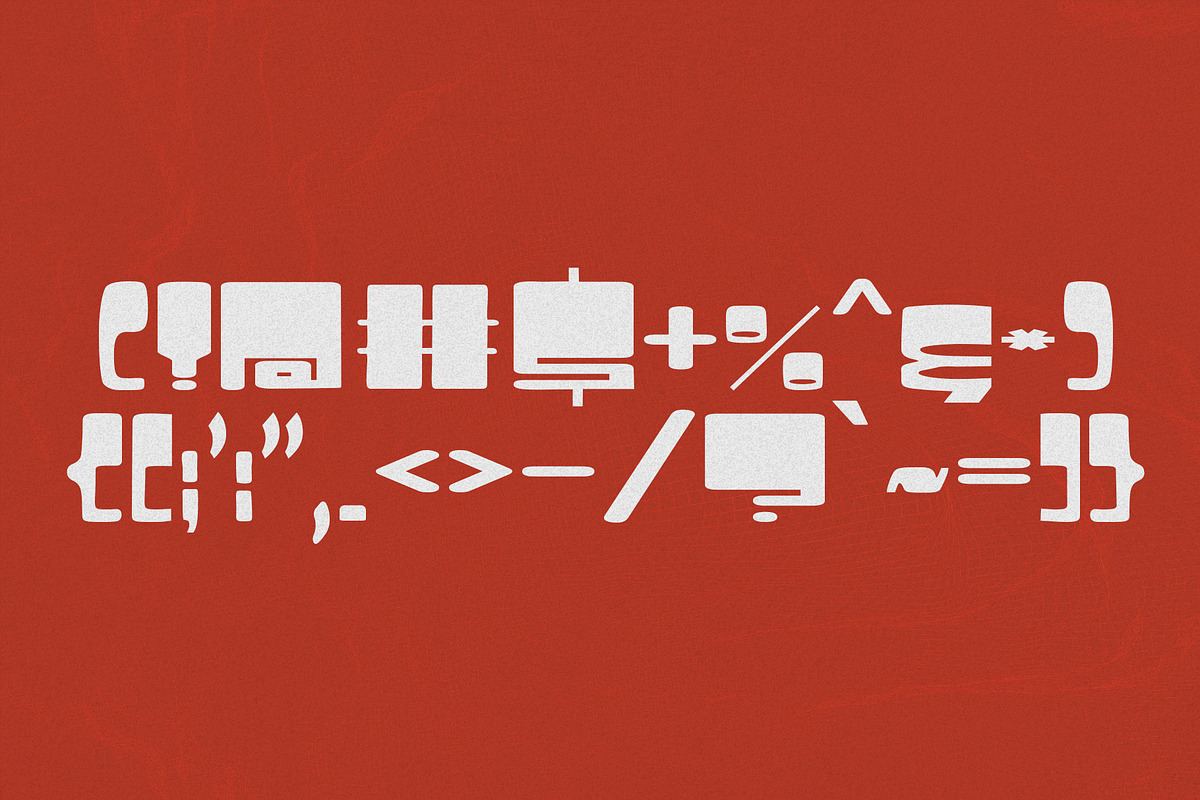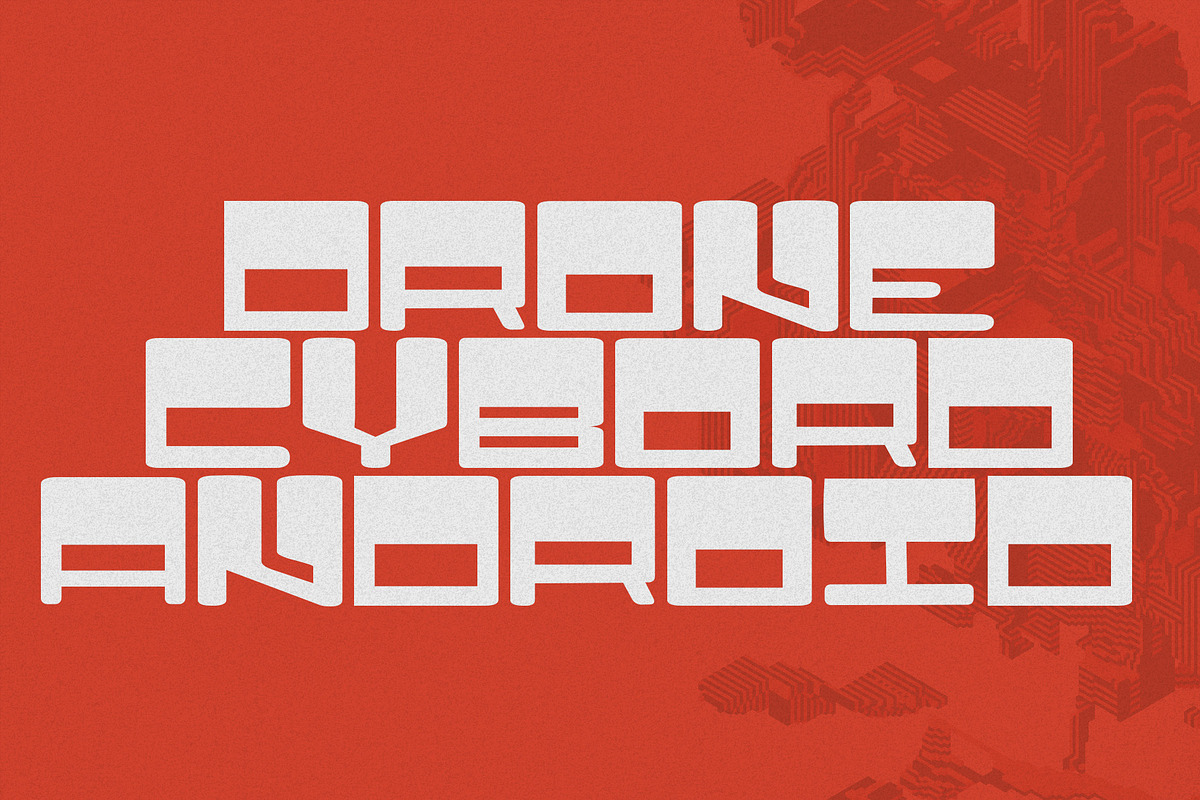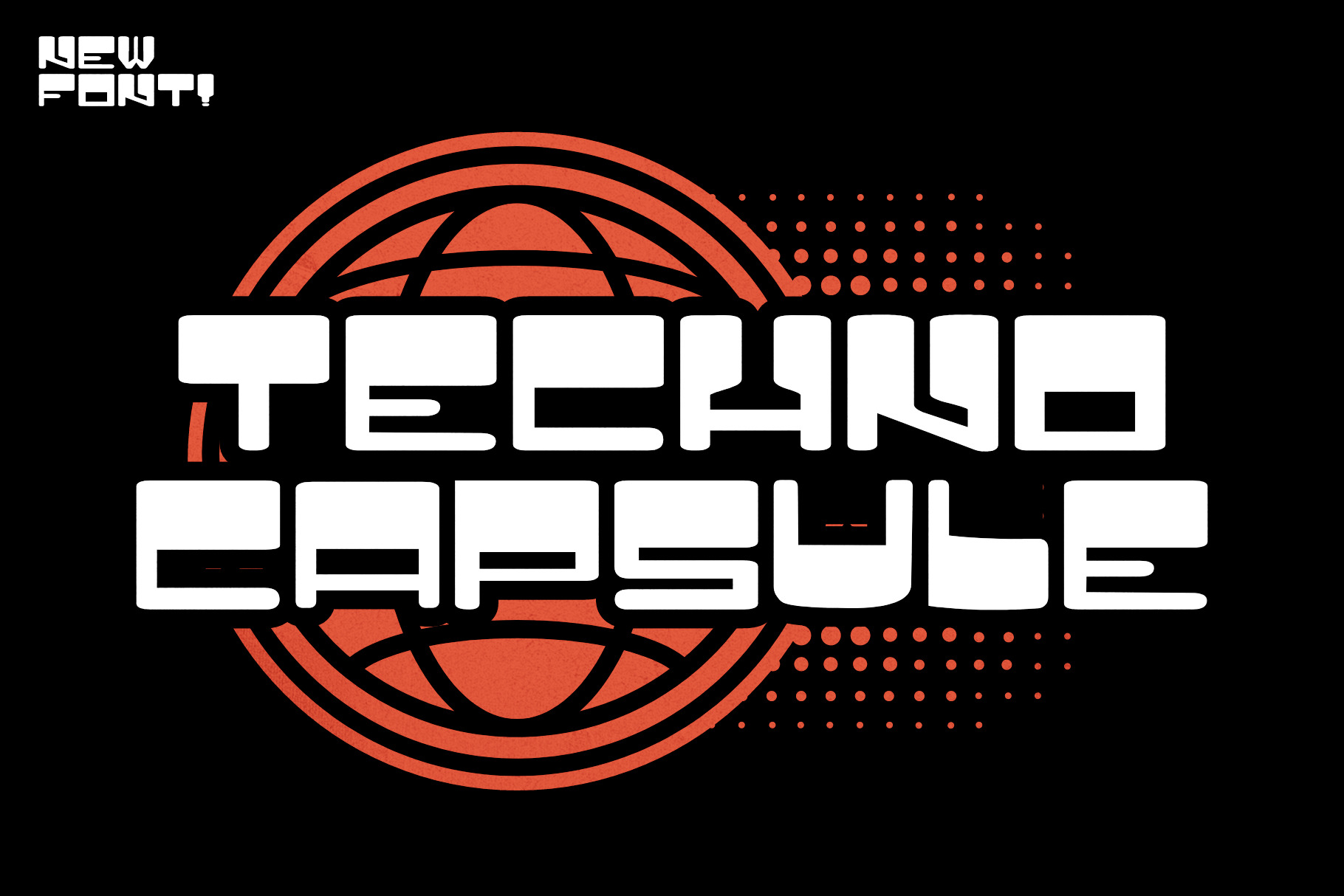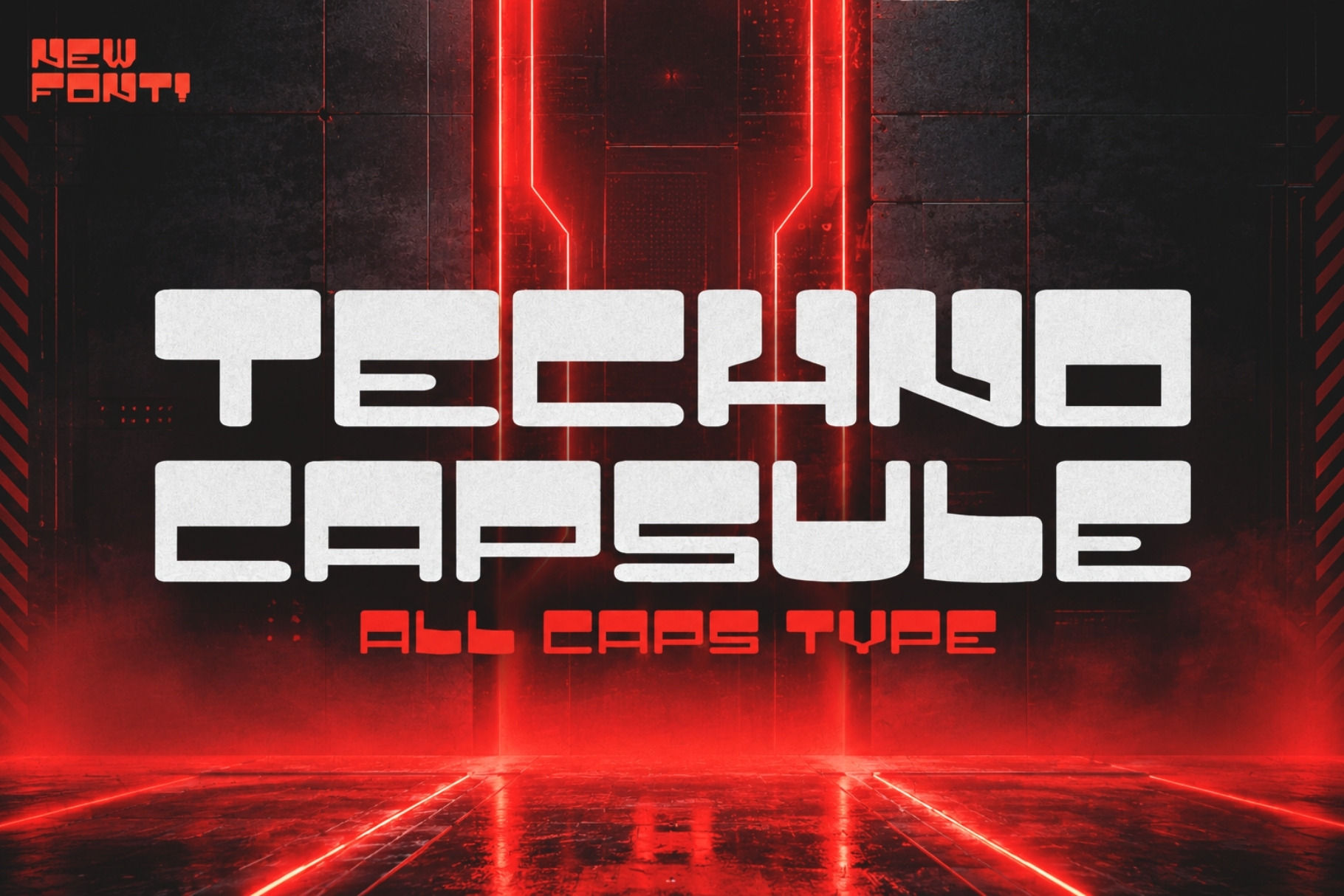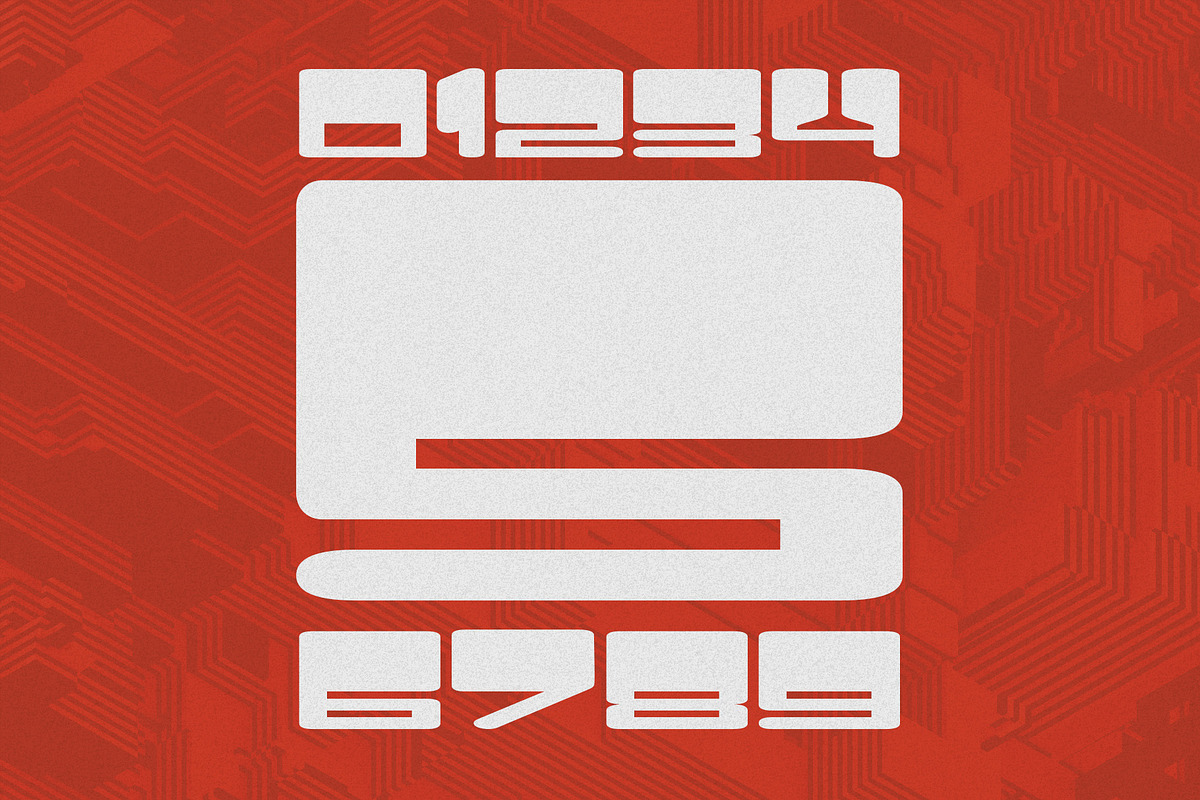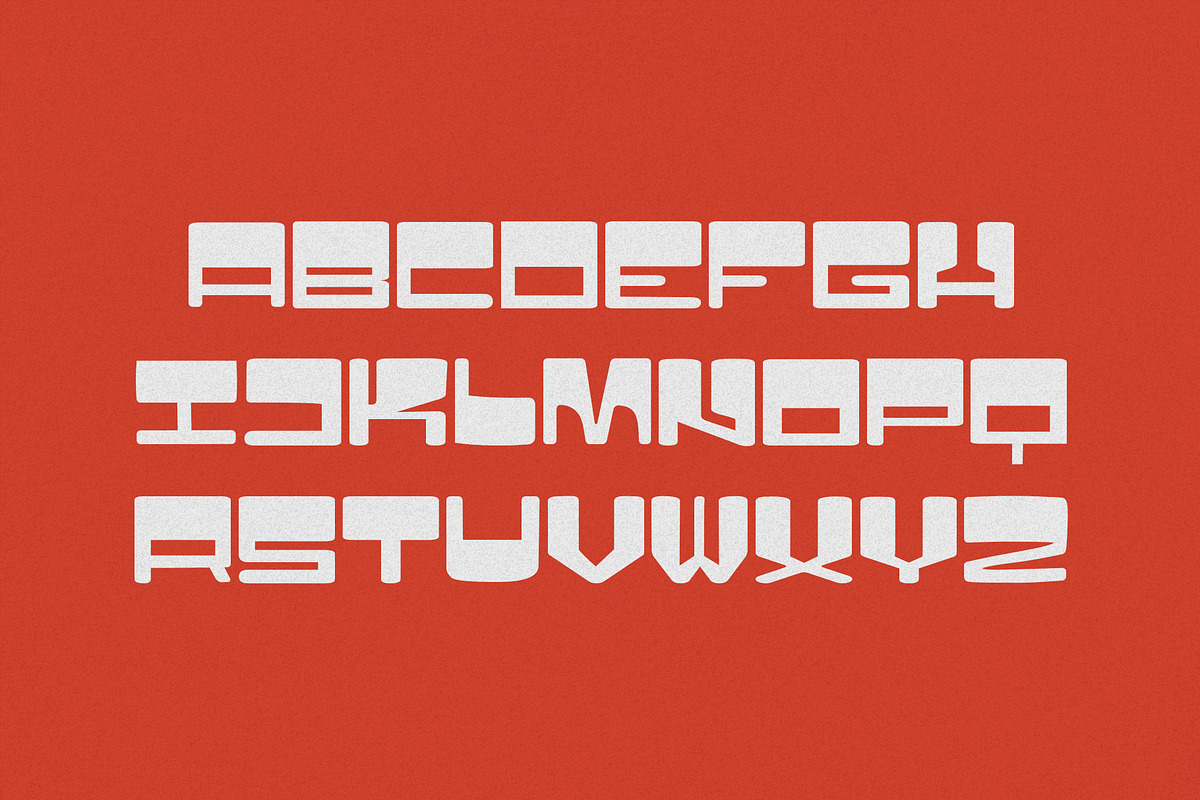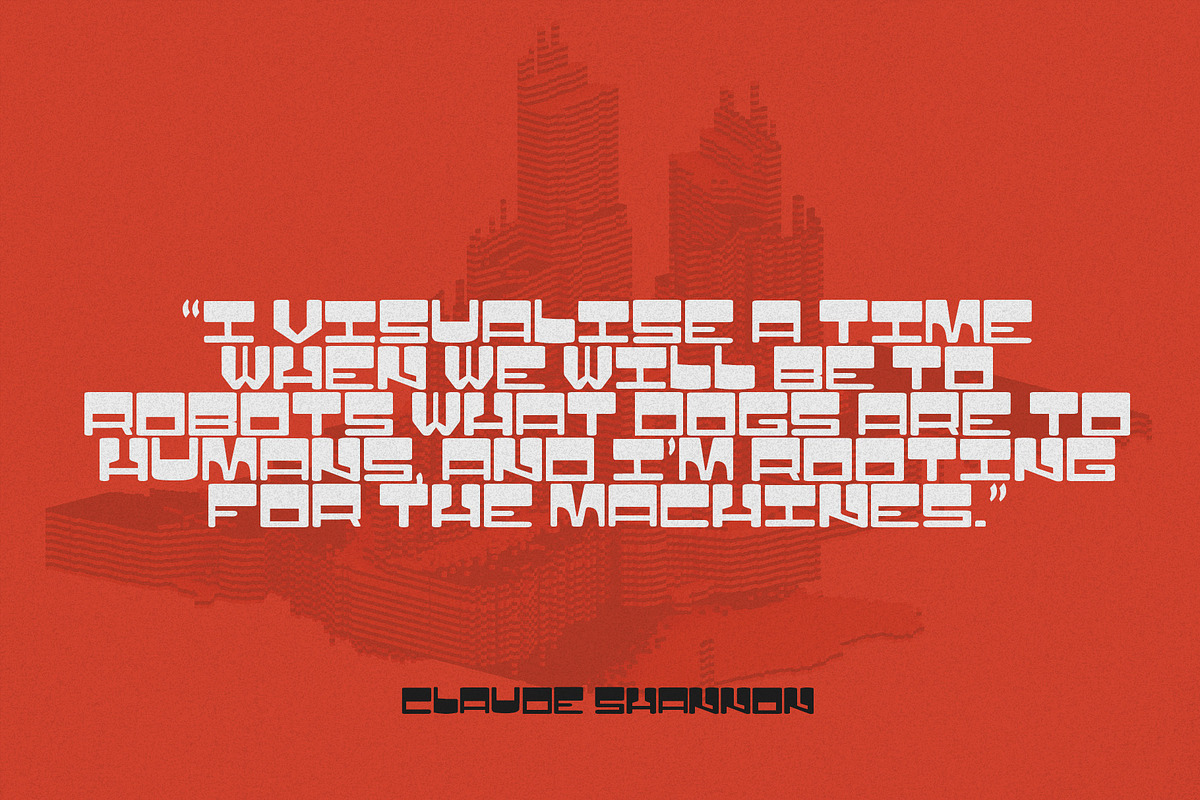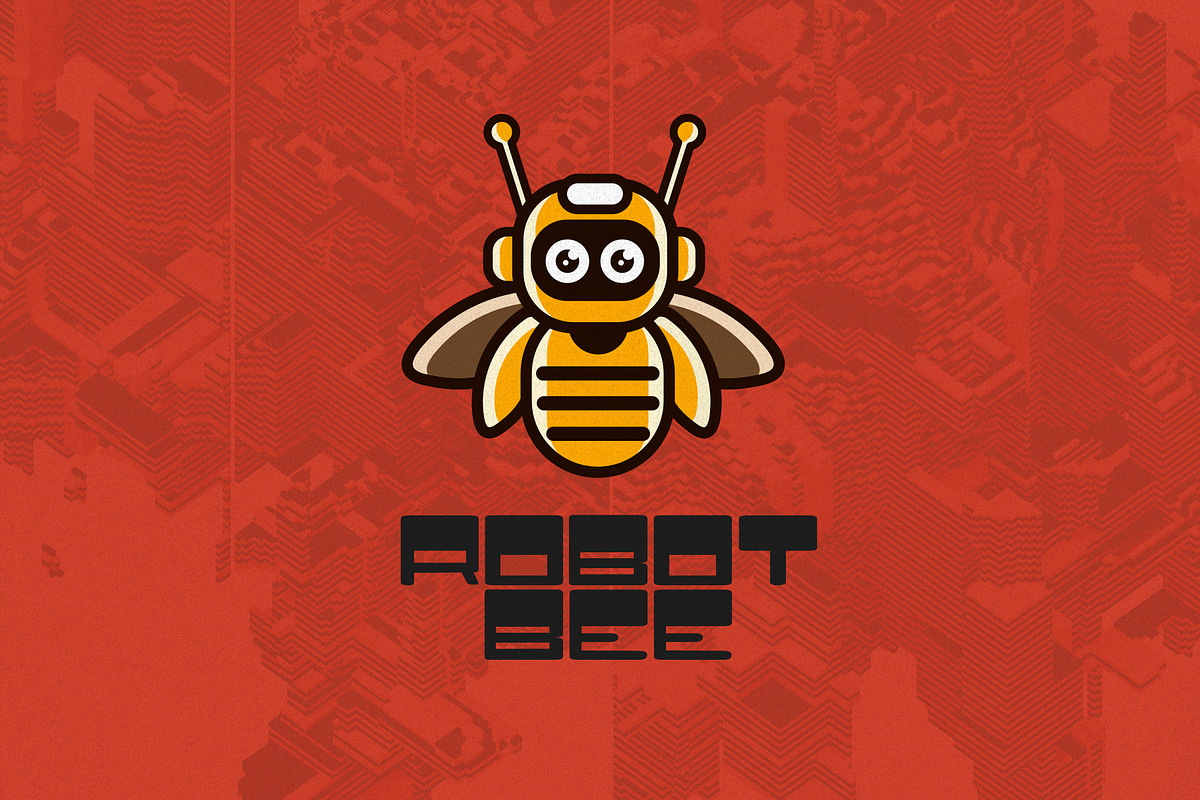
Techno Capsule - Y2K Typeface
Techno Capsule is an all caps Y2K typeface inspired by androids. This font is great for creating eye-catching logos, headlines, posters, video games, sports racing, social media graphics, web designs, print designs, motion graphics, t-shirts and much more. Techno capsule play perfectly into the futuristic cyberpunk aesthetic movement. It comes in OTF and TTF versions. Make an impact with Techno Capsule today!